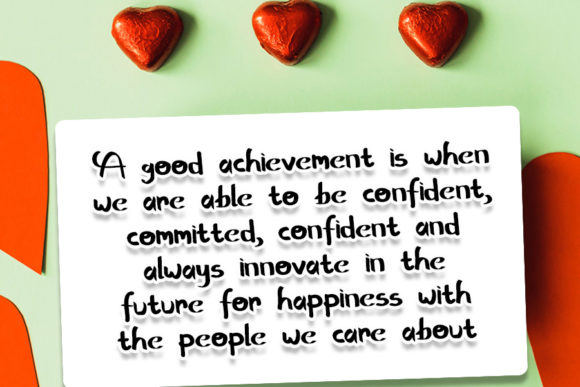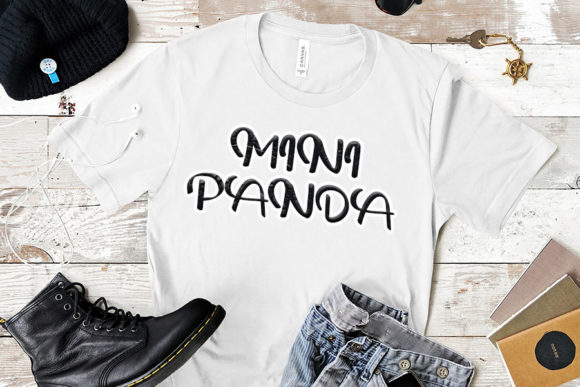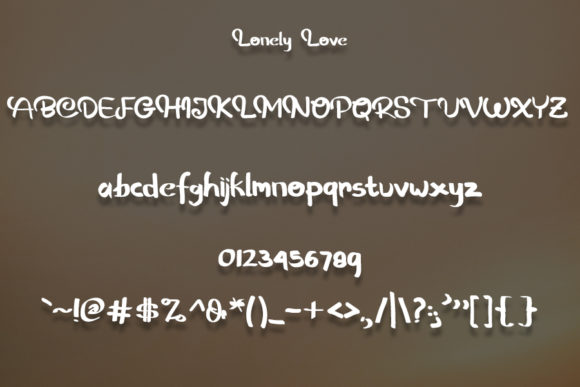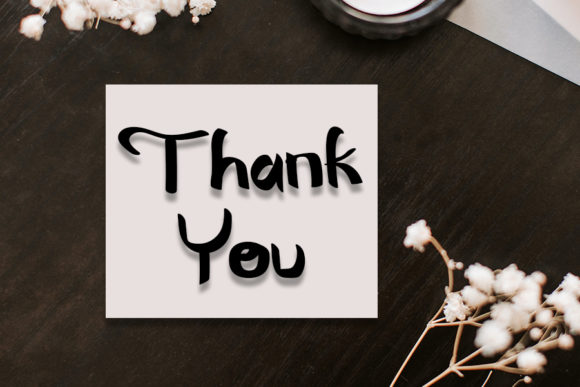
Introduction to Lonely Love Font
Lonely Love is a simple, all round and clean display font.
Its flexibility and jolly spirit will brighten up each of your designs Have fun with this beautiful font and explore its endless variations.